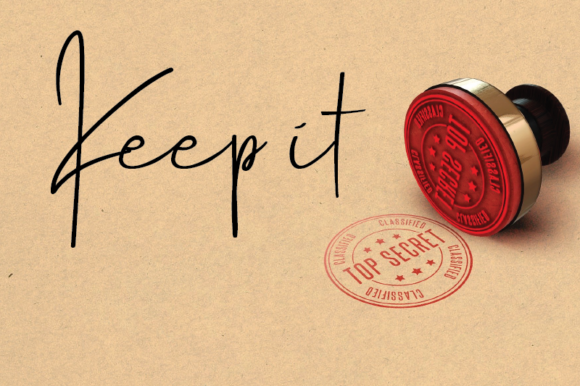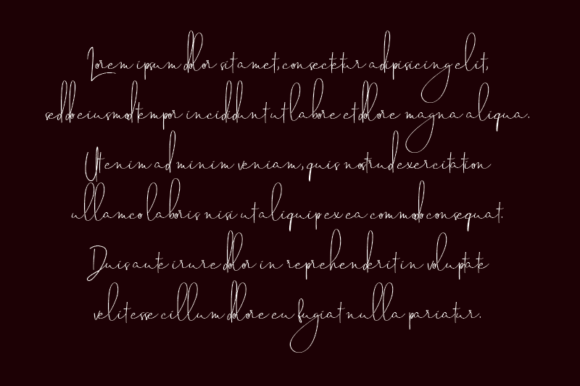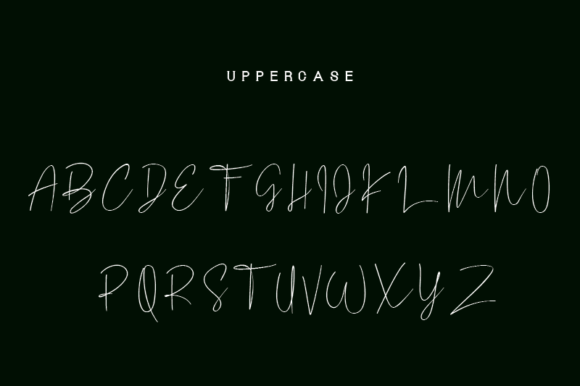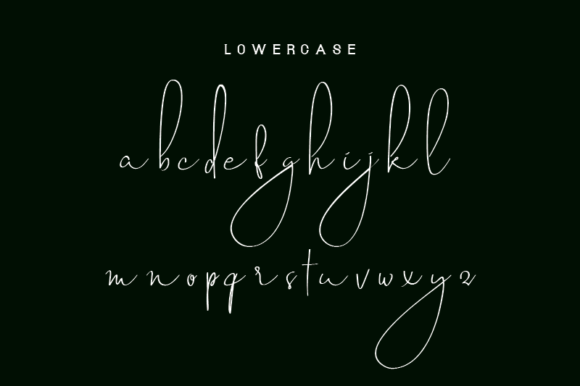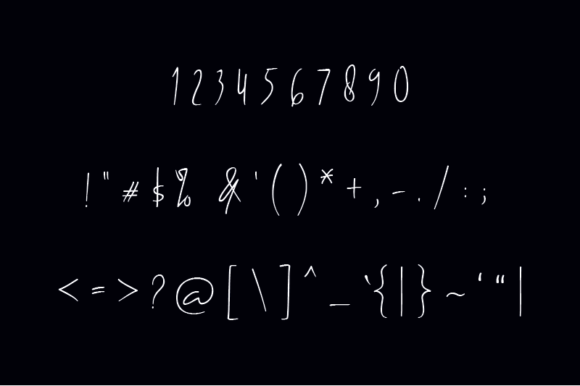
About Bathalyone Font
Bathalyone is a delicate, elegant and flowing handwritten font. It has beautiful and well balanced characters and as a result, it matches a wide pool of designs. Add it to your most creative ideas and notice how it makes them come alive!